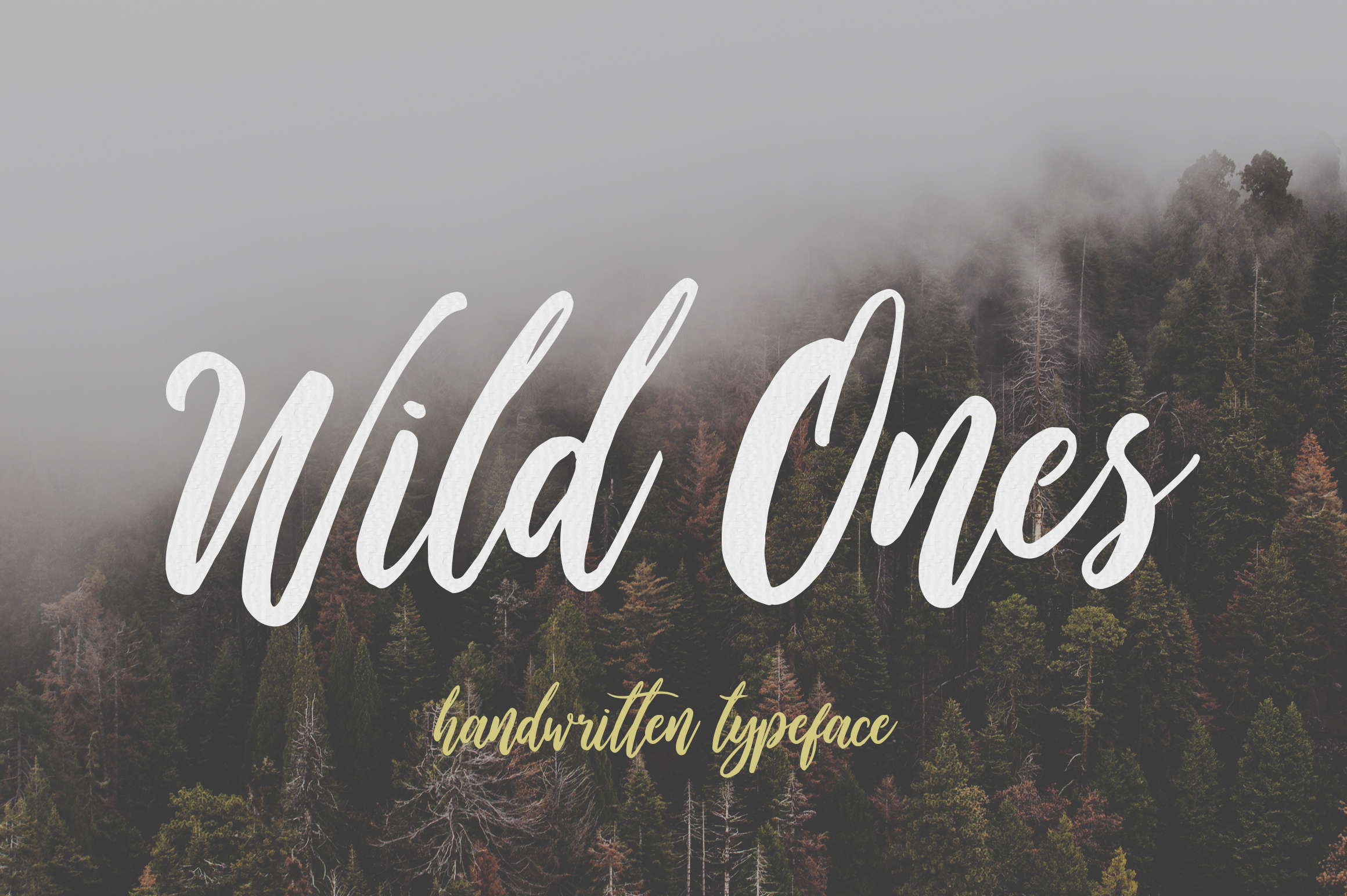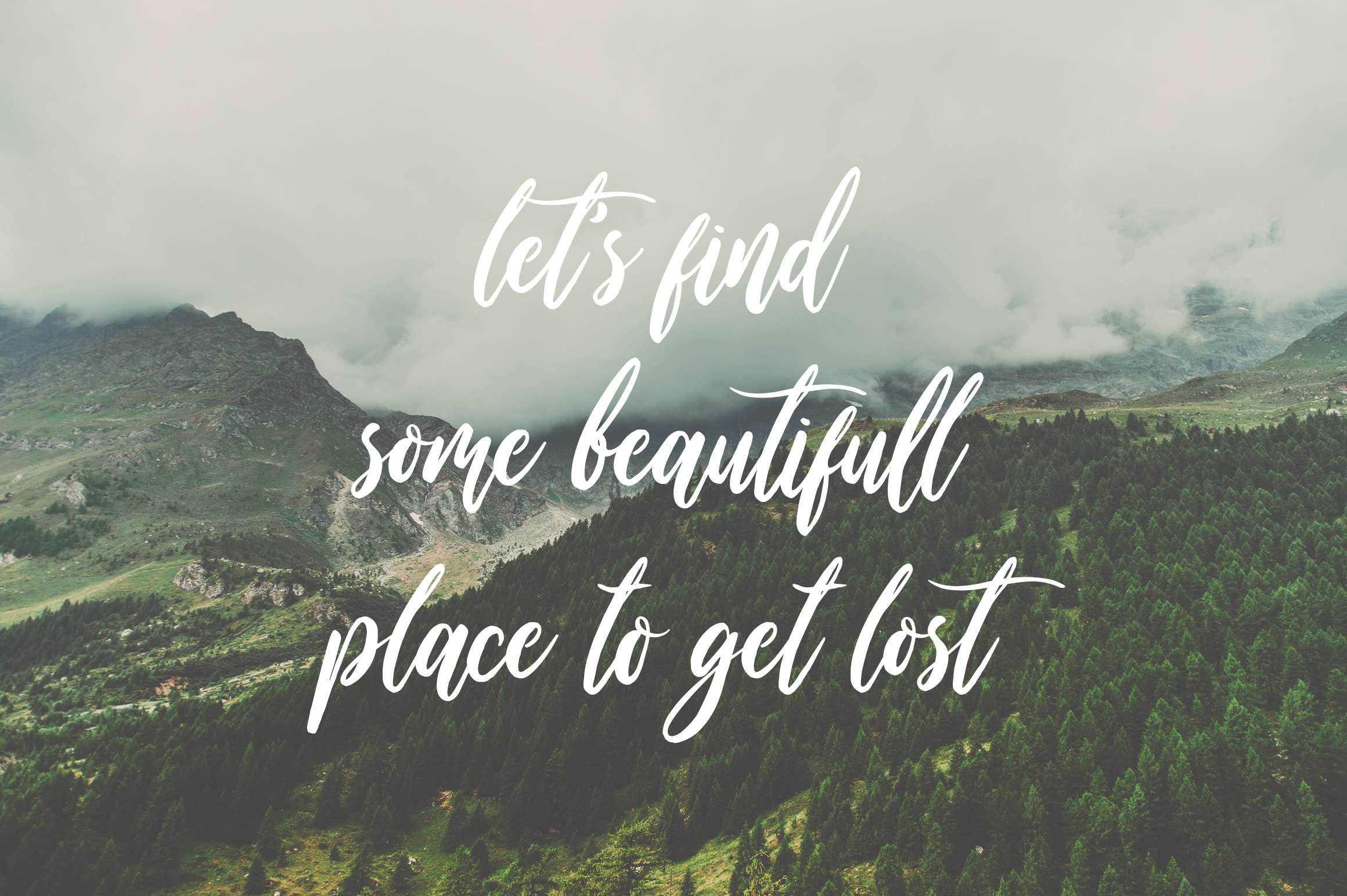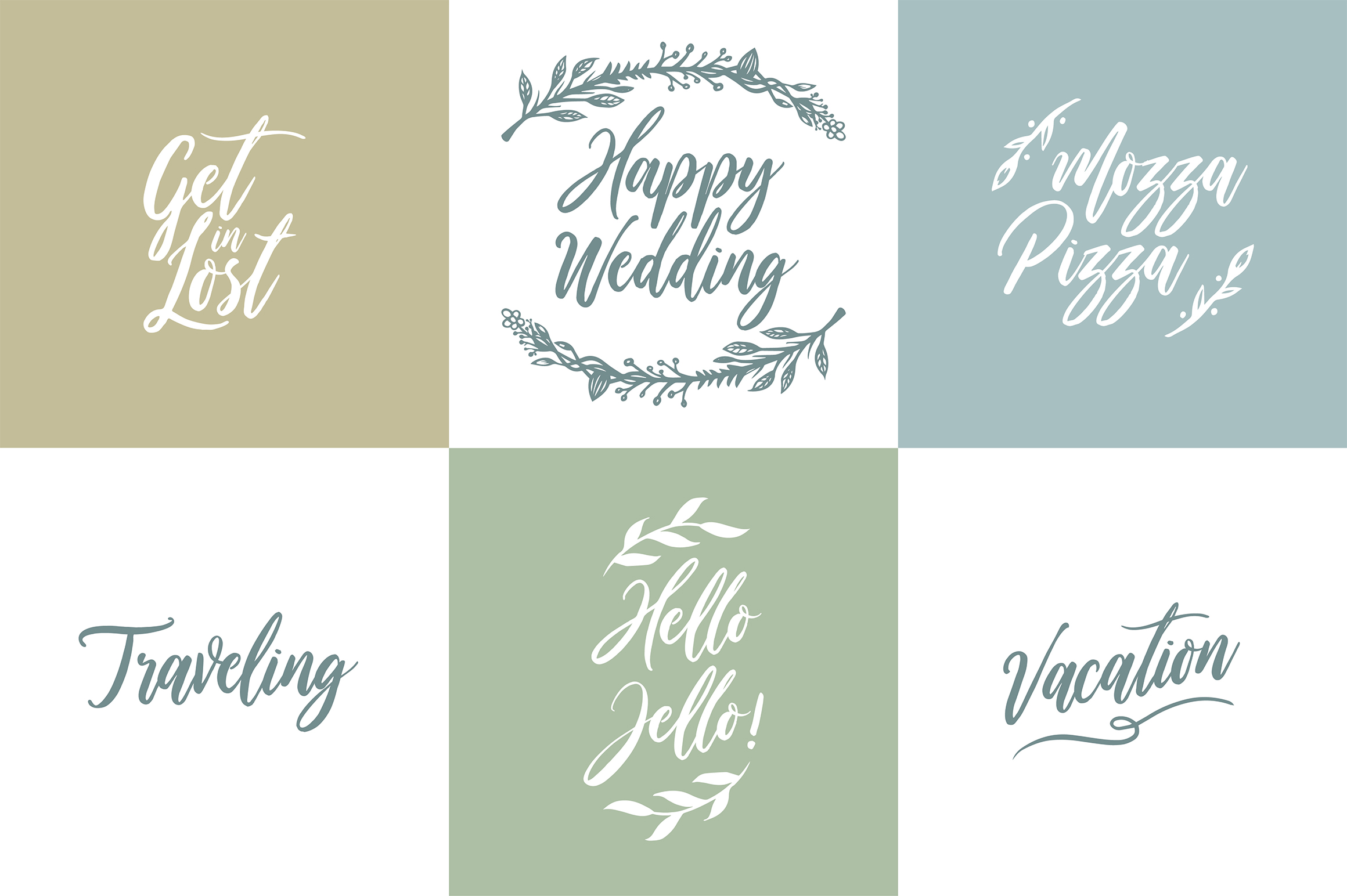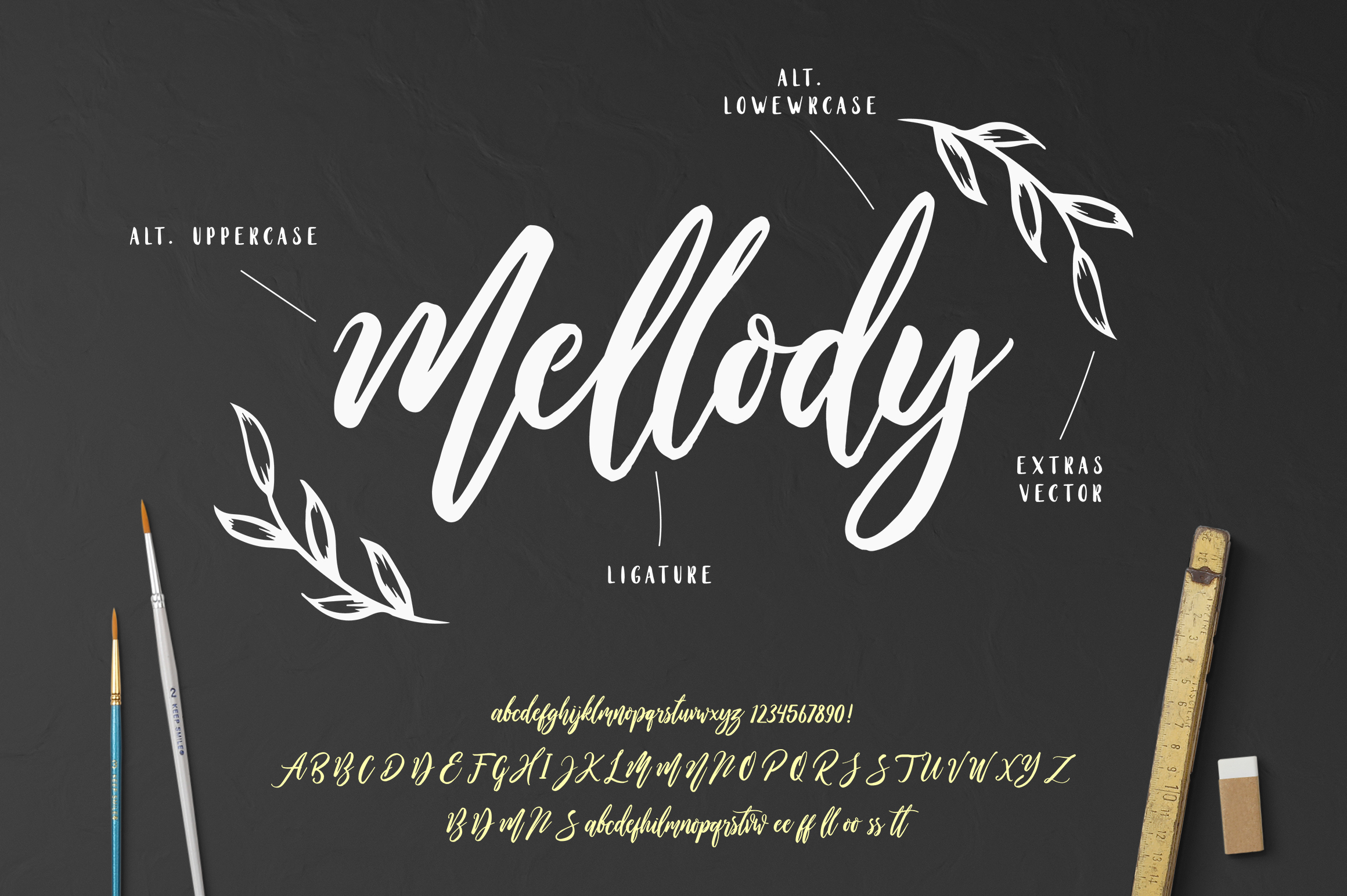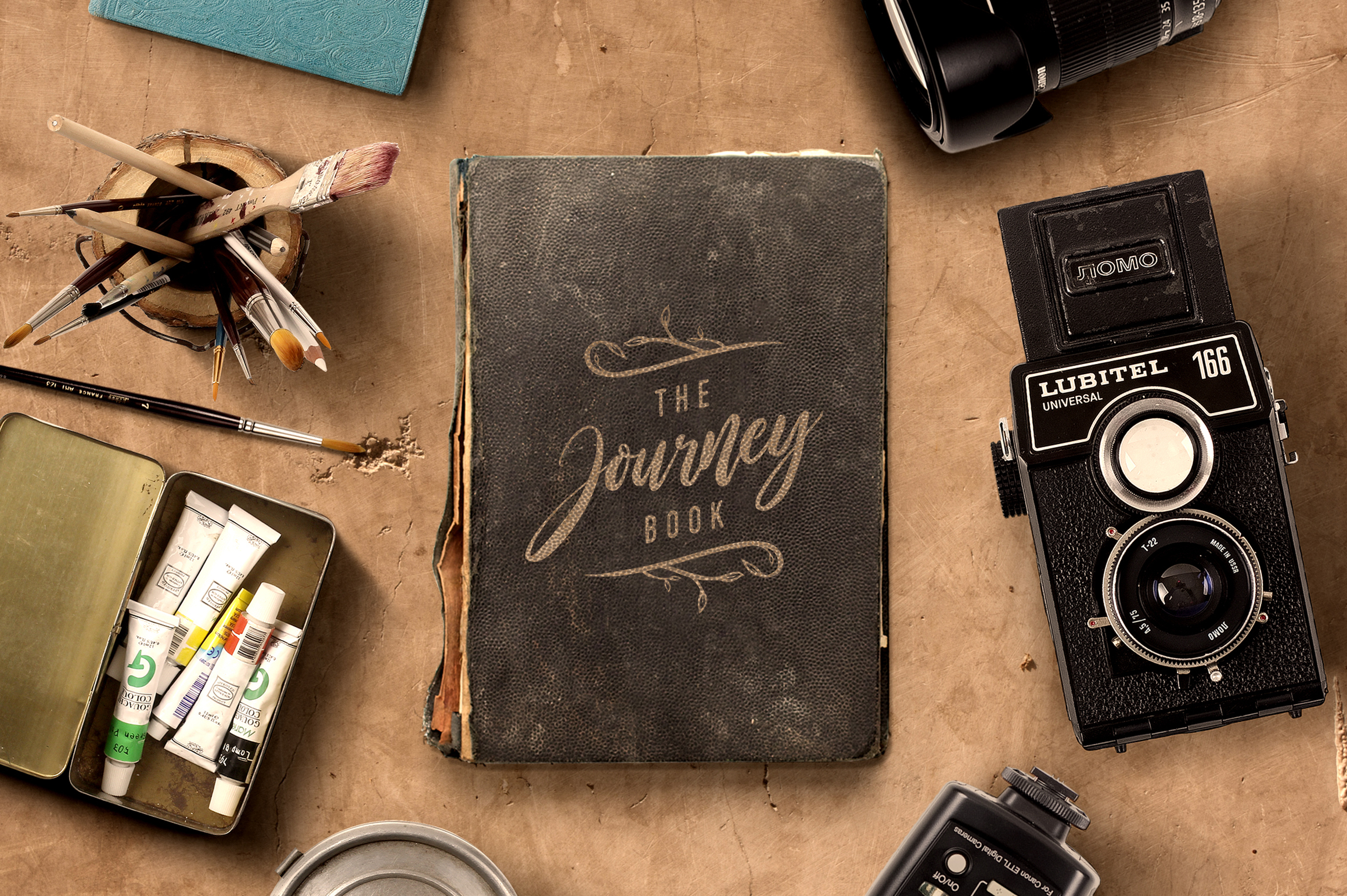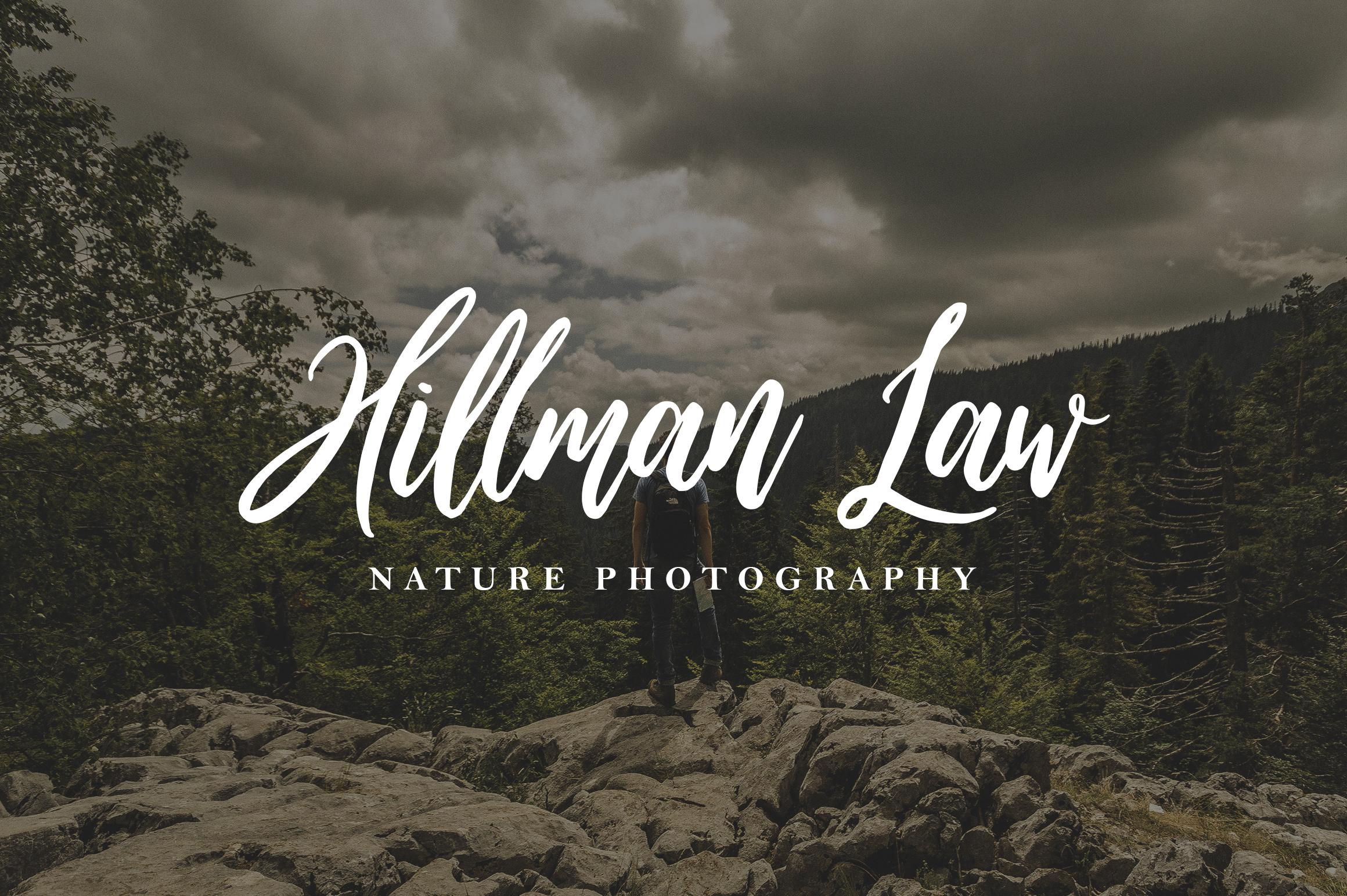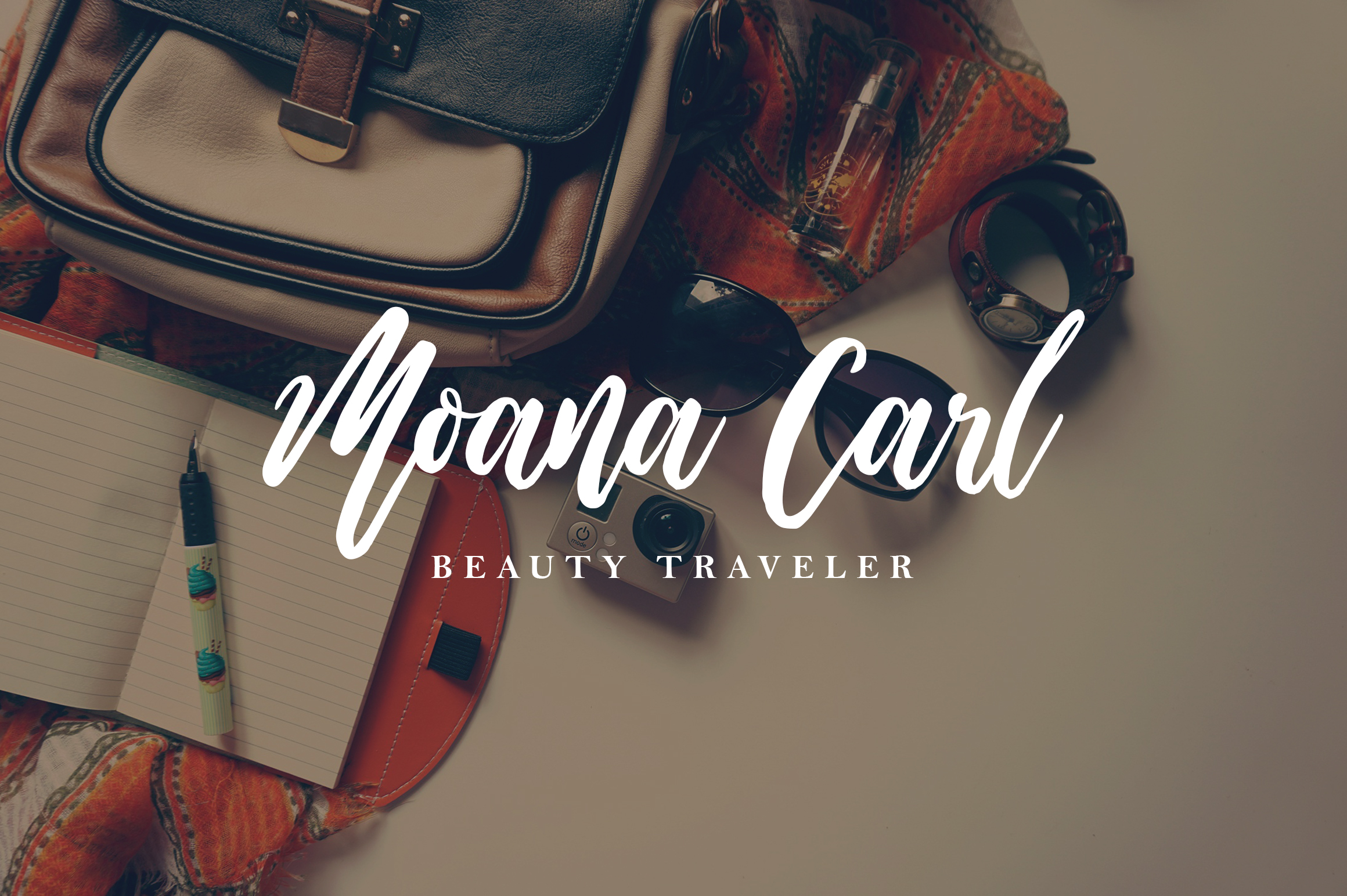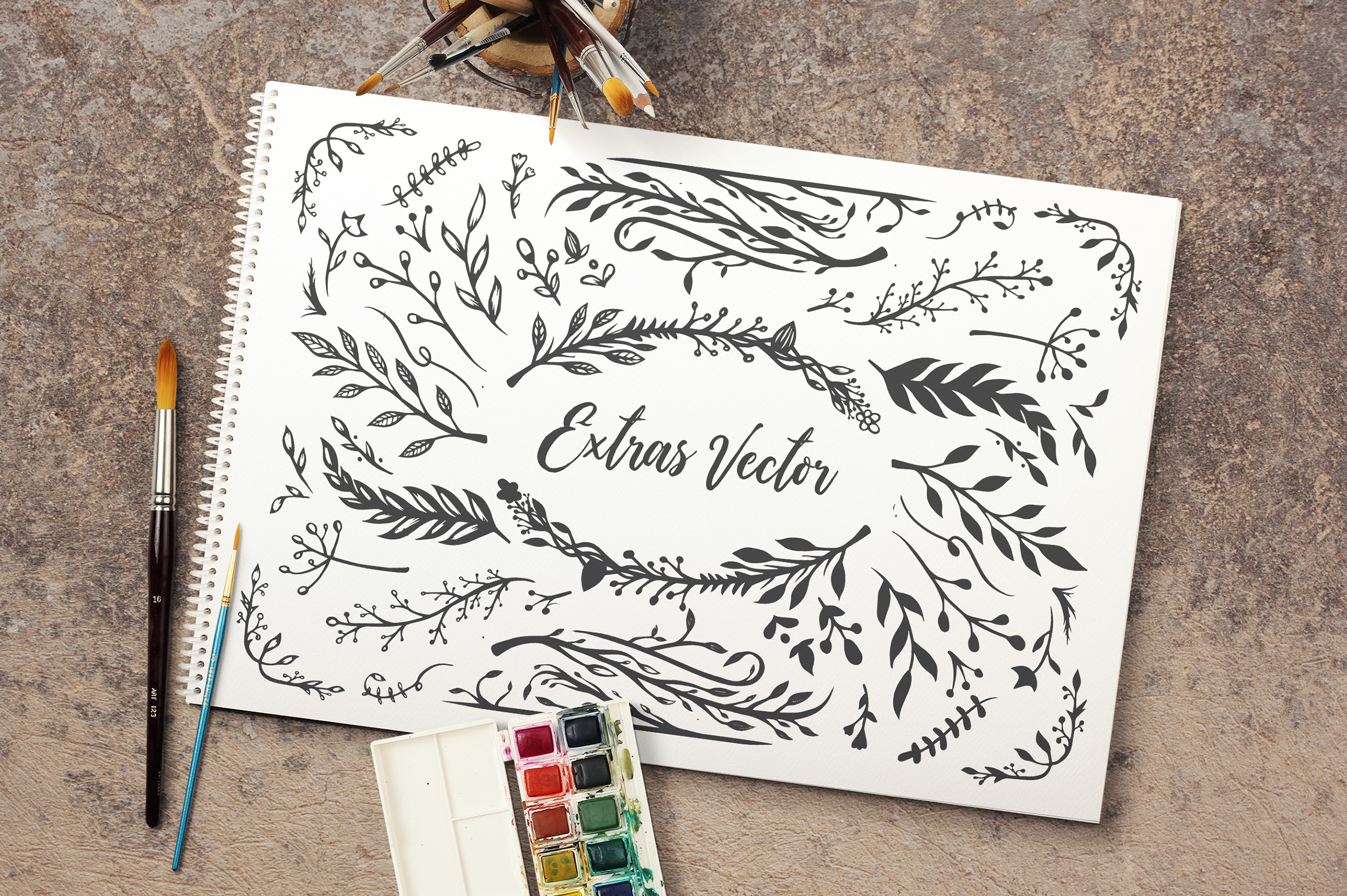
Wild Ones Font
About Wild Ones Font
Wild Ones is a handbrushed script font inspired by modern calligraphy. The font is incredibly fun, playful and beautiful all at the same time. Wild Ones is a beautifully original font type, and can give your designs a modern and on-trend appeal.